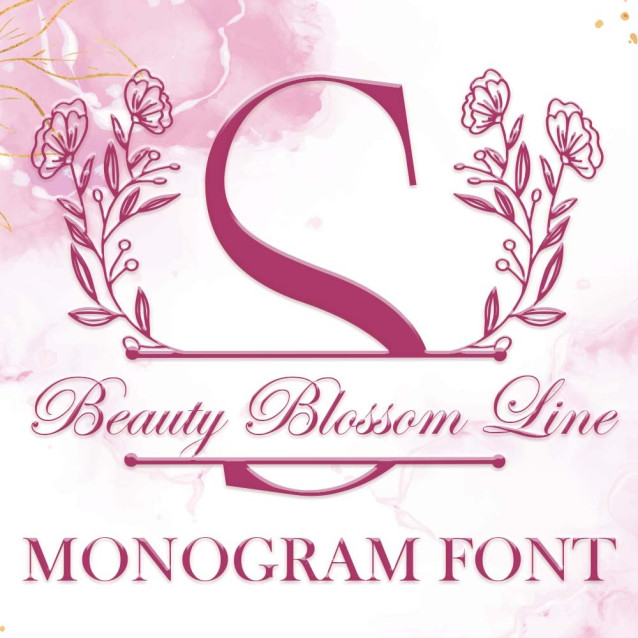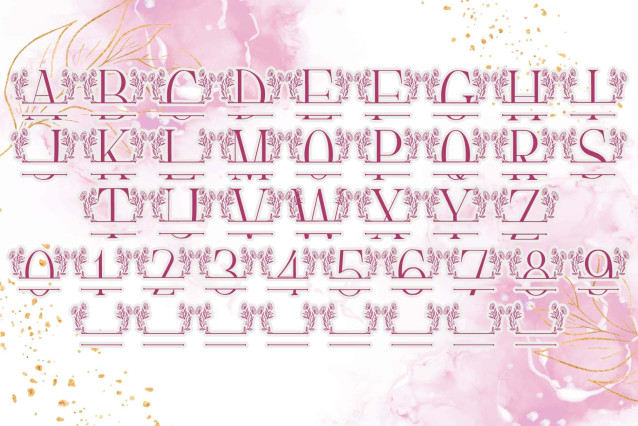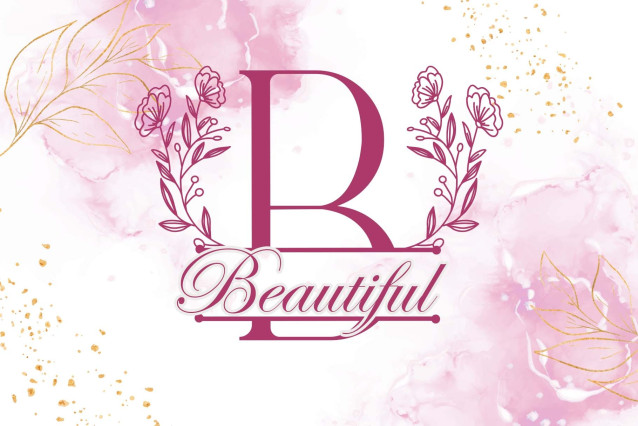
Beauty Blossom Line Monogram Font
Beauty Blossom Line Monogram Font is a delicate and graceful monogram font featuring hand-drawn floral line art. With its refined blossom accents and minimalistic elegance, this typeface is perfect for wedding stationery, personalized branding, boutique packaging, and sophisticated design projects. Each letter is uniquely crafted with floral line details, bringing a soft, romantic charm to your creative work.